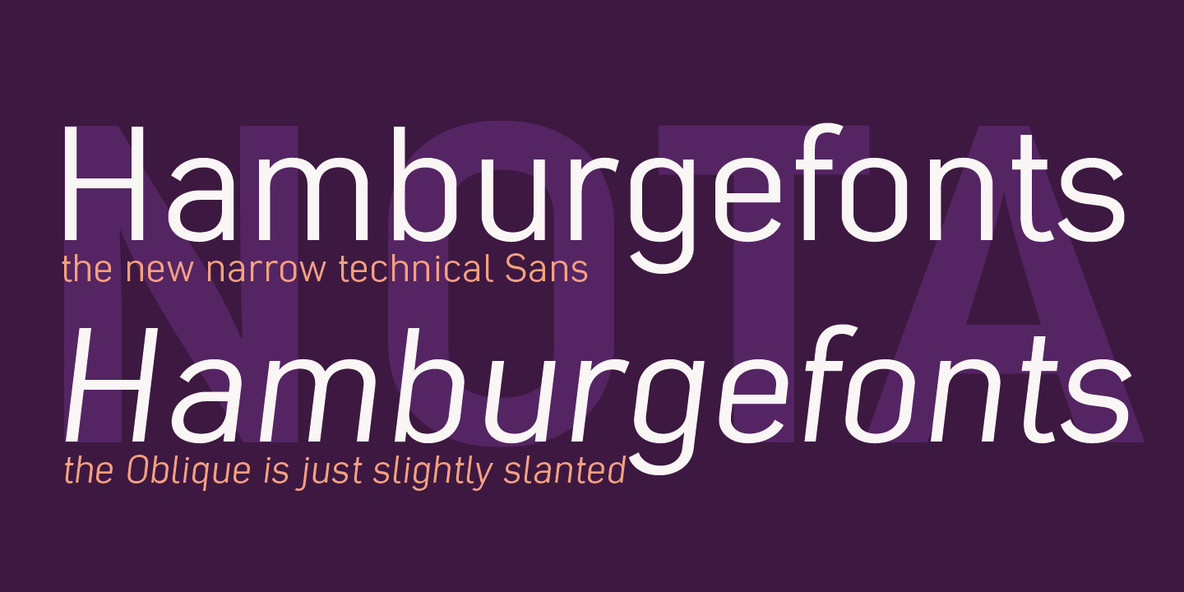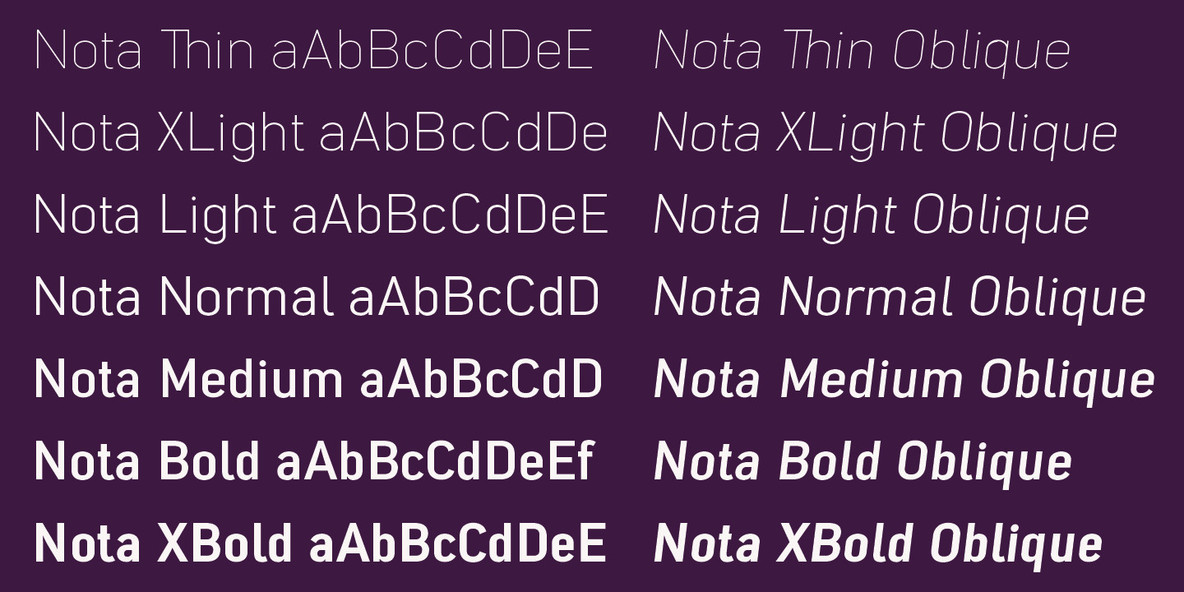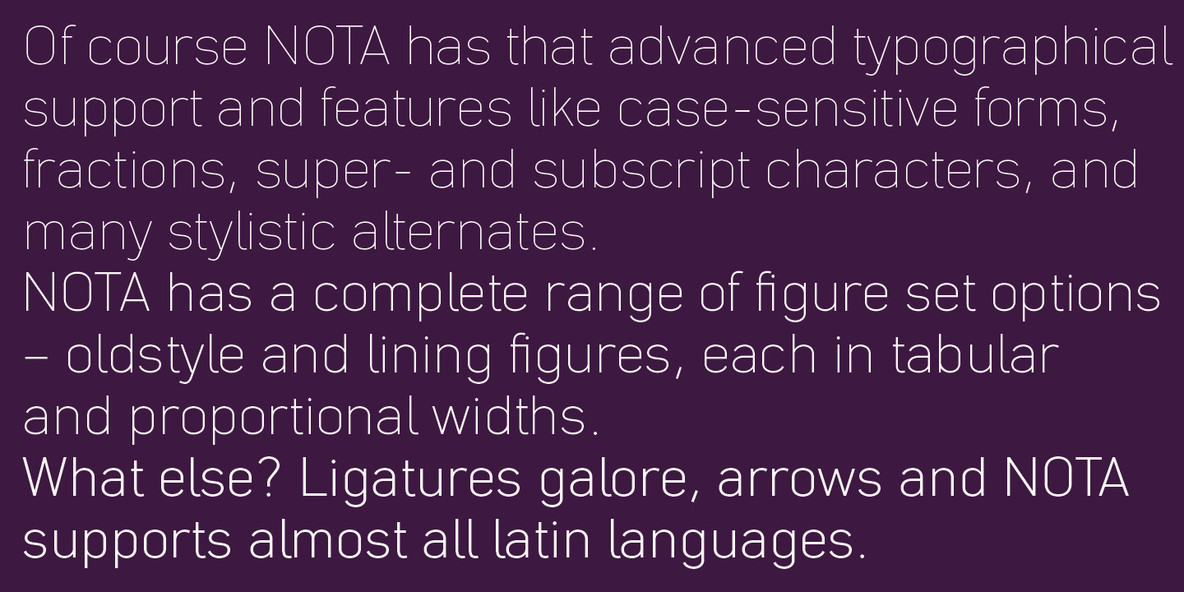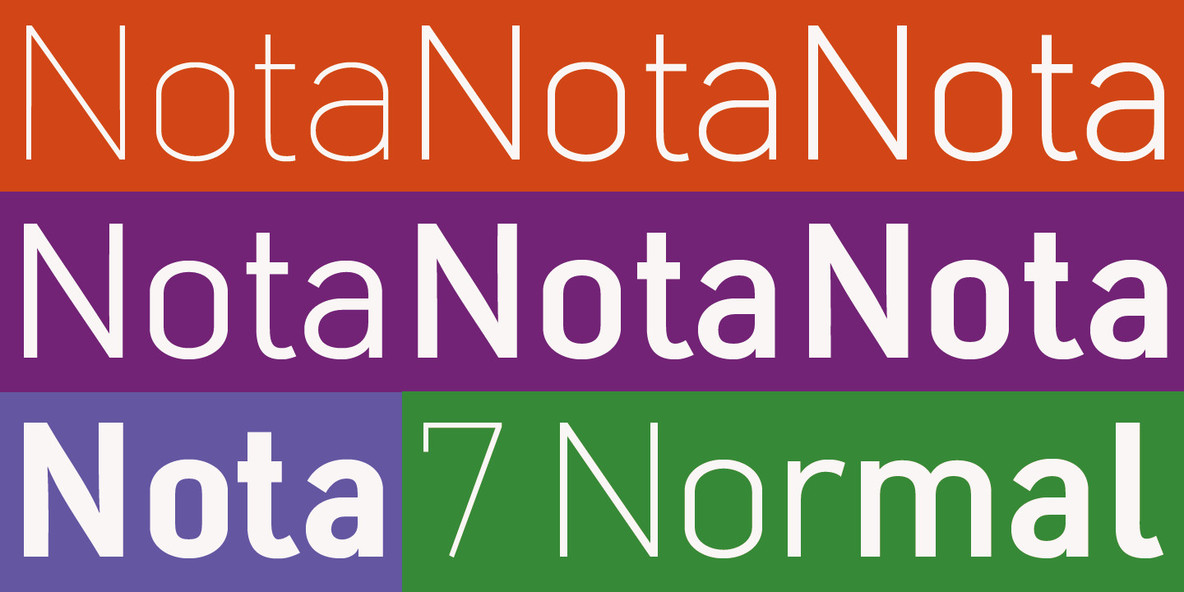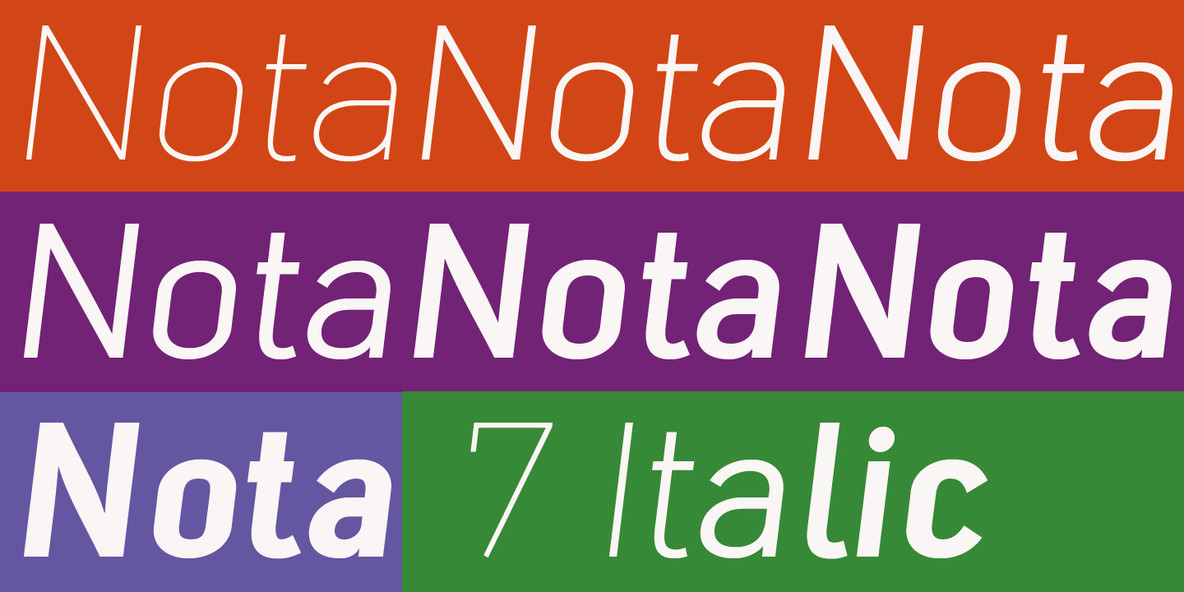
Nota Font
NOTA is a new, narrow, technical font– designed by Gert Wiescher in 2014 and 2015 – has 7 weights with corresponding oblique cuts. »NOTA« is well suited for advertising, logo, billboards, small text, signage, branding, packaging, editorial, posters, web and screen design.
NOTA is an OpenType family for professional typography with an extended character set of over 700 glyphs and extensive kerning. It supports more than 40 Central- and Eastern-European as well as many Western languages. Ligatures, different figures, fractions, currency symbols and small caps can be found in all cuts.